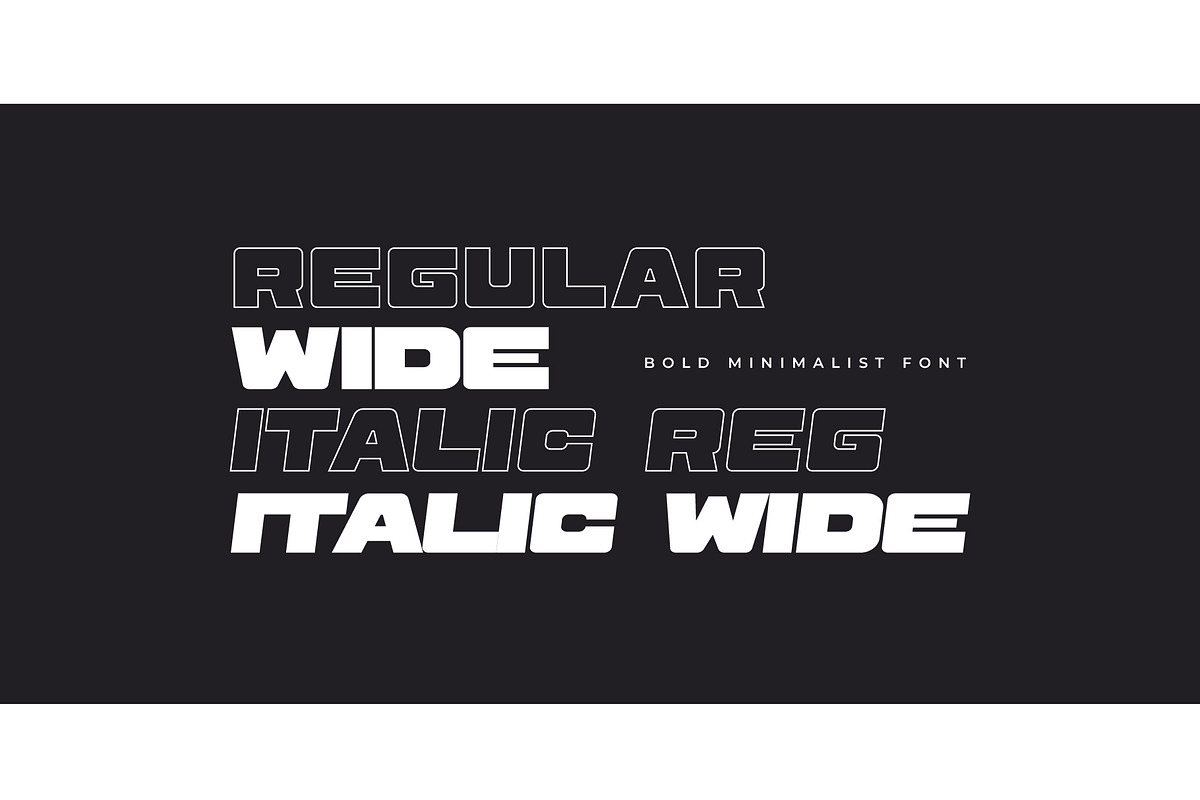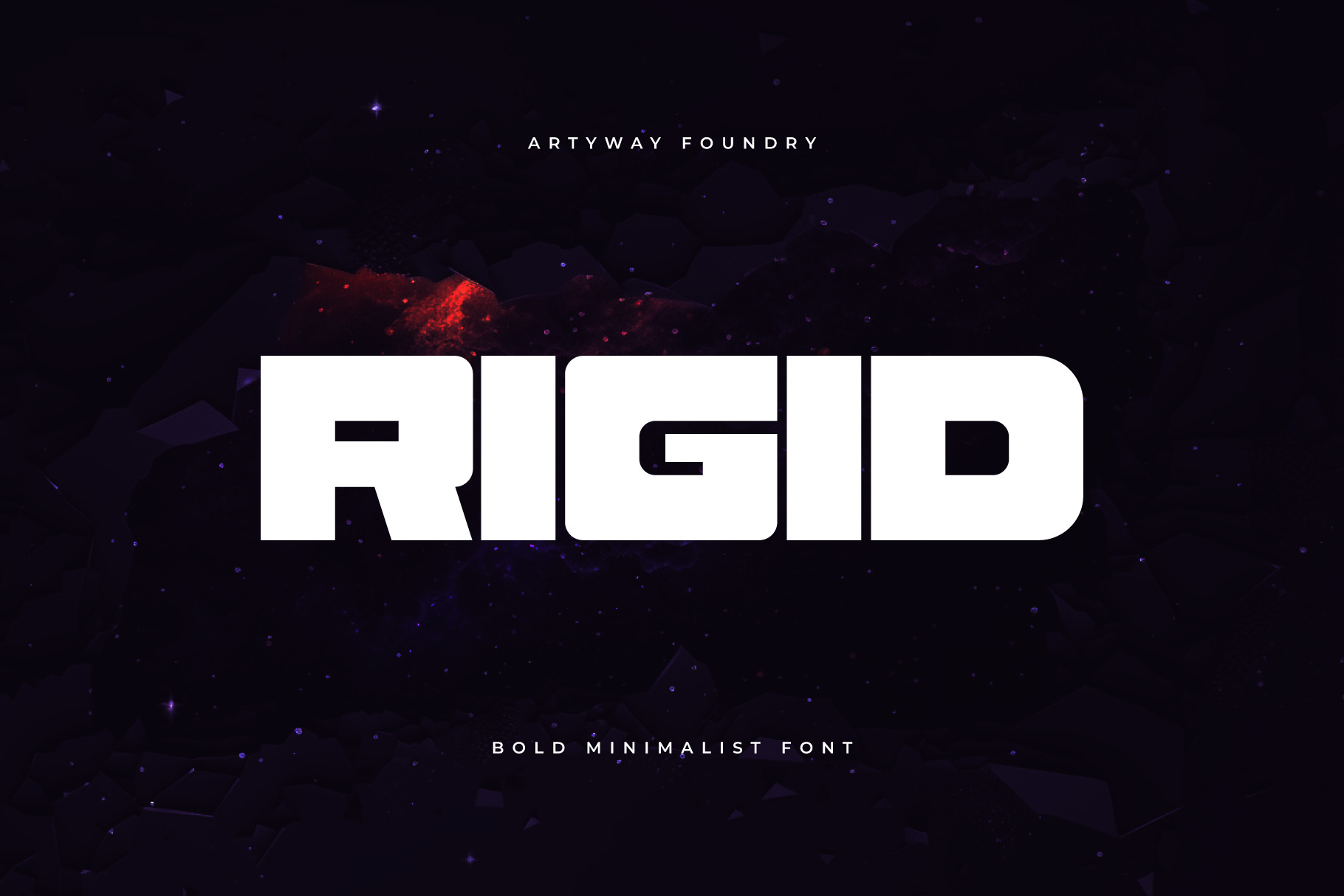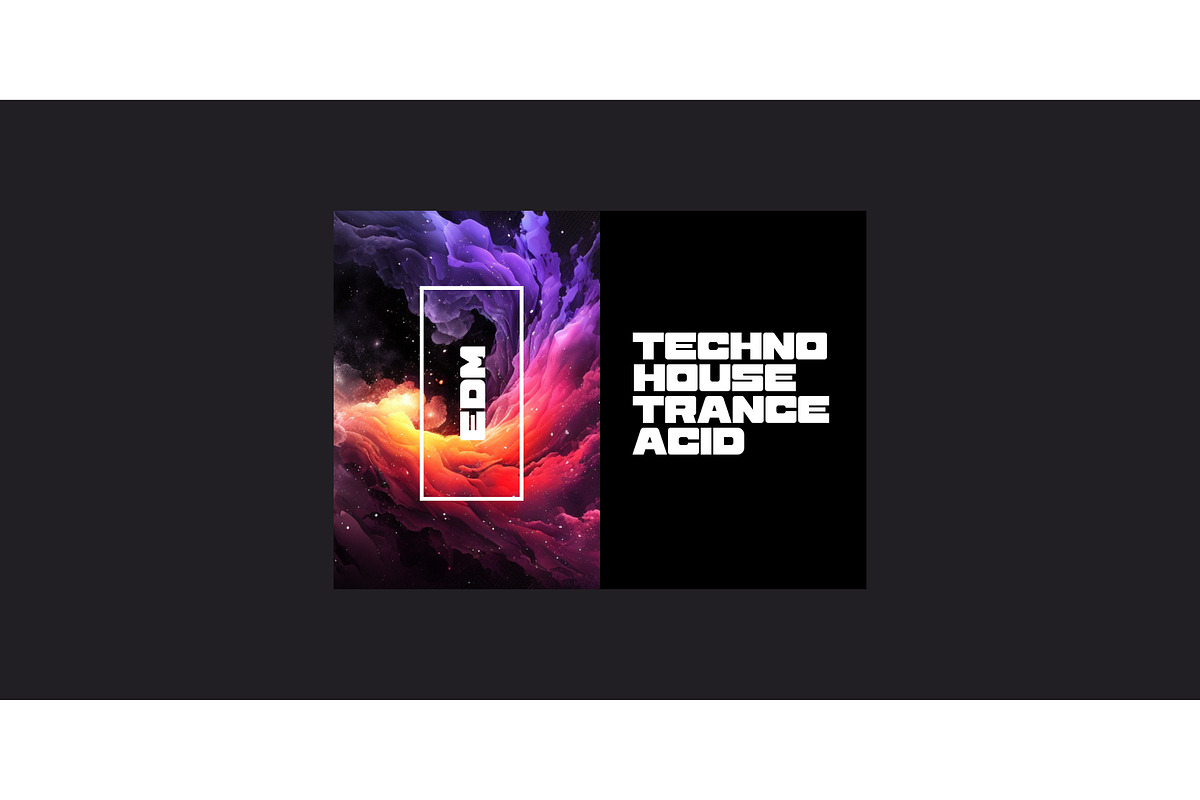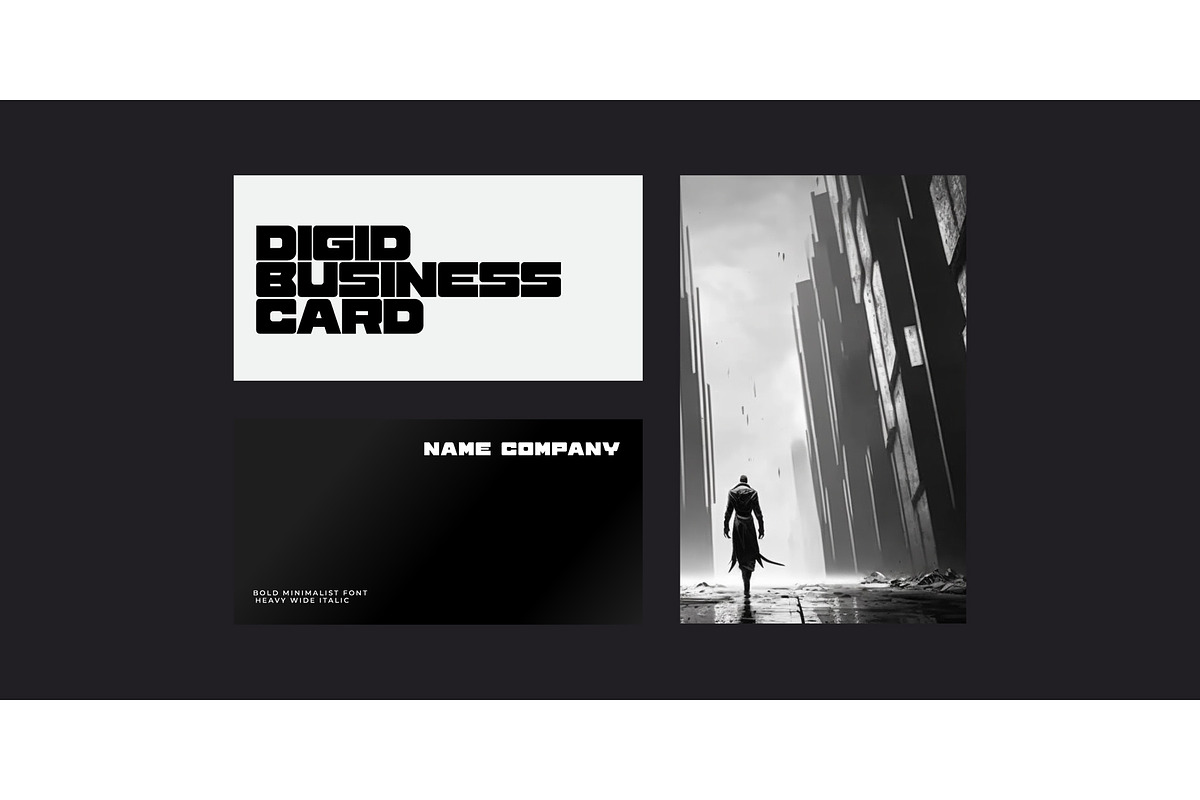
Rigid Headline Font
Rigid — Bold Wide Tech Display Font
Rigid is a bold minimalist display font built for impact. Its wide, geometric shapes and rounded-square corners create a modern tech/racing attitude that reads loud and clean in headlines, logos, and posters.
Perfect for
- Logos & modern branding (tech, streetwear, esports)
- Racing / automotive titles and sports graphics
- Techno, house, trance, EDM flyers & album covers
- Posters, billboards, YouTube thumbnails, social media ads
- Game UI headers, app hero titles, streamer overlays
- Packaging, labels, and bold editorial headlines
- Multiple styles shown in preview (Regular / Wide / Italic / Outline variants)
- Uppercase basic symbols